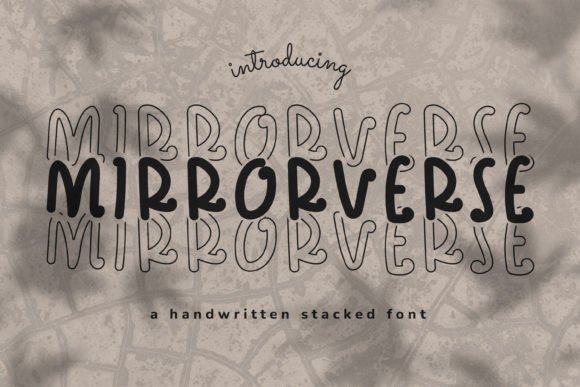
Presenting the astounding Mirrorverse Font, a mesmerizing creation by WADLEN. Dive into the realm of elegance and distinction with this script font, meticulously designed to elevate your creative projects to new heights of brilliance. Mirrorverse is not simply a font; it's an artistic gateway that unlocks the door to stunning designs, leaving an unforgettable impression on your audience.
Mirrorverse bestows upon you the power to weave magic into your custom designs, transforming ordinary words into captivating masterpieces. Its graceful strokes and whimsical curves dance across the page, captivating hearts with their playful charm. Whether you're crafting personalized invitations, designing unique logos, or creating heartfelt cards, Mirrorverse becomes your trusty companion, guiding you toward creative greatness.
Step into the world of DIY crafts, where Mirrorverse shines as the perfect partner for your imaginative endeavors. With its versatility, this script font seamlessly blends into various materials, from wood to acrylic, leaving a lasting impression on your handcrafted creations. Personalize home décor, fashion accessories, or delightful gifts with Mirrorverse, adding a touch of exclusivity to each piece.
Embark on a creative journey with Mirrorverse, where the possibilities are limitless. Whether you're a seasoned designer or a budding enthusiast, this font ignites your passion, inspiring you to explore uncharted territories of creativity. Witness the transformation as your imagination merges with Mirrorverse's boundless potential, resulting in awe-inspiring designs that captivate and enchant.
Elevate your digital creations with Mirrorverse, the ultimate choice for eye-catching social media posts, website designs, and captivating online content. Its captivating aesthetics enhance your digital presence, drawing attention and leaving a lasting impression. Mirrorverse empowers you to stand out from the digital crowd, ensuring your message resonates with your audience in an unforgettable way.